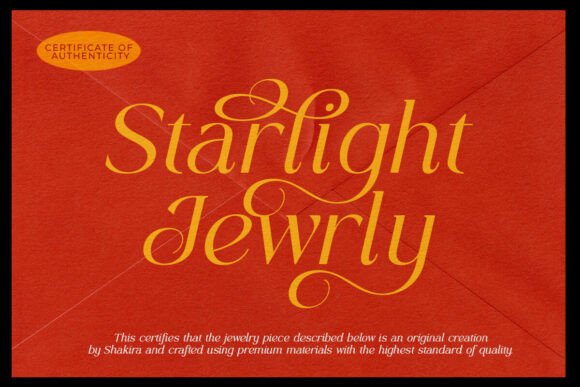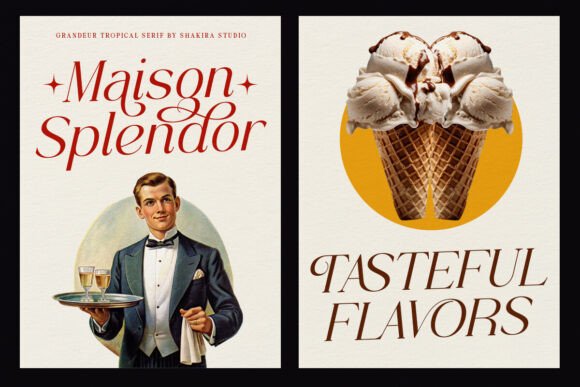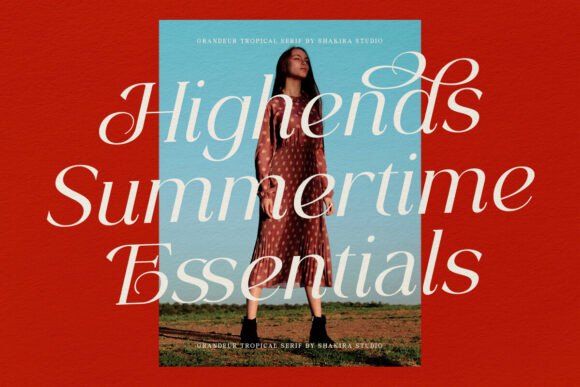
Introduction to Grandeur Tropical Font
Grandeur Tropical – Retro Serif Font Grandeur Tropical is a luxurious retro serif font with a bold and stylish character, perfect for creating stunning and memorable designs.
Featuring elegant alternates and ligatures, this font offers flexibility and ease of use, allowing designers to customize layouts effortlessly Ideal for posters, magazines, and print designs, Grandeur Tropical brings a touch of sophistication and cool retro vibes to every project.
Key Features of Grandeur Tropical Font
Why Choose Grandeur Tropical Font?